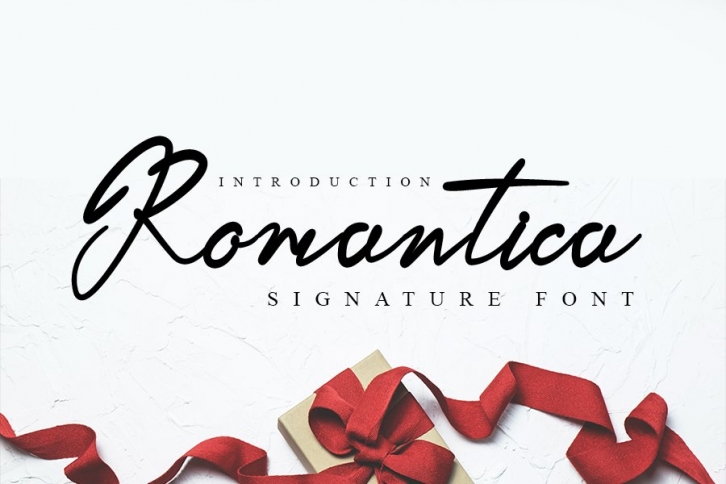
Romantica is a trendy and unique font with an authentic style. It was designed by InermediaSTUDIO and it's a great choice for creative people who need such a font. It was released on July 30, 2020 and the file size is 20.16 MB. Romantica will add an organic vibe to any design idea!